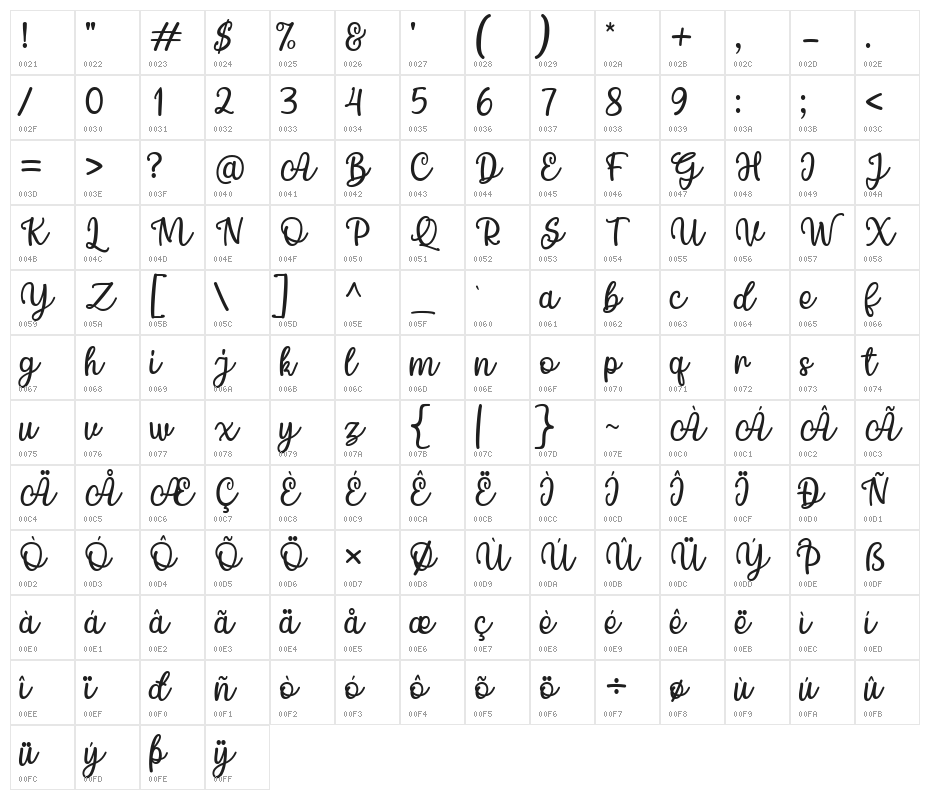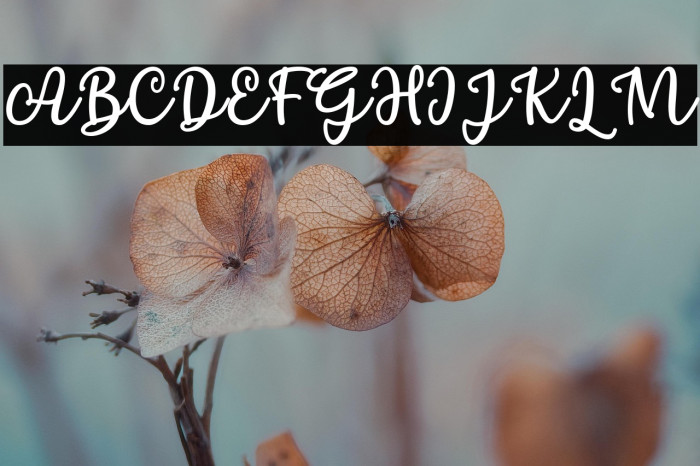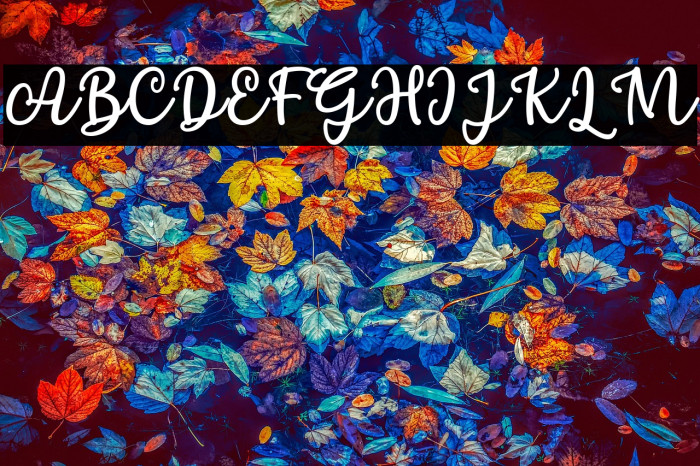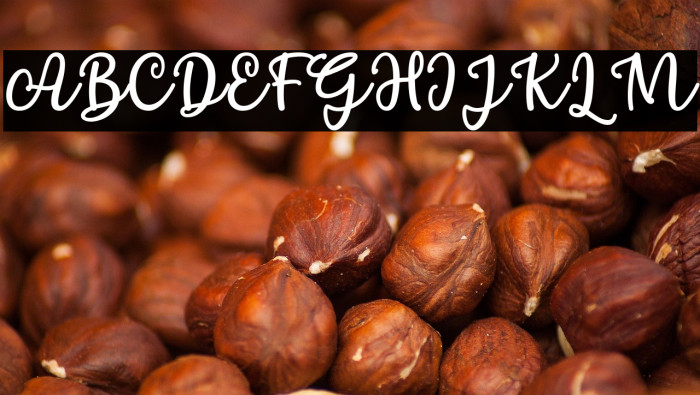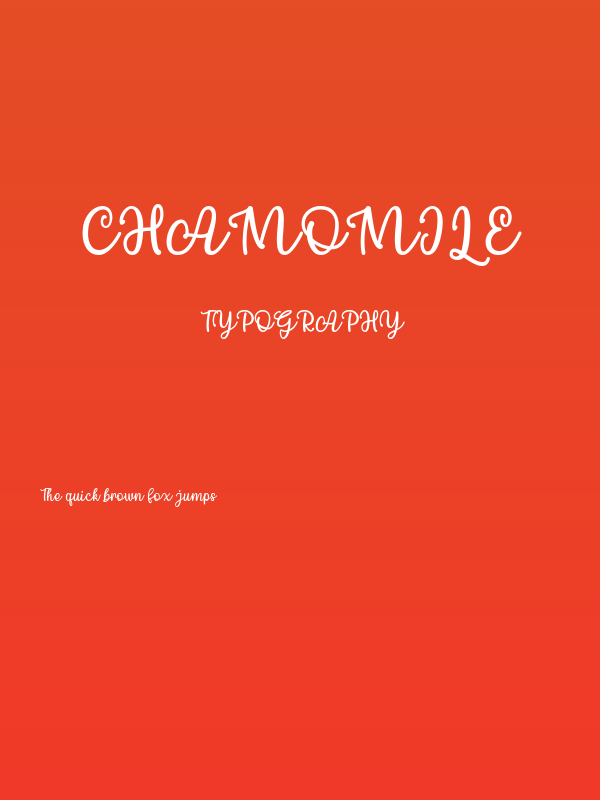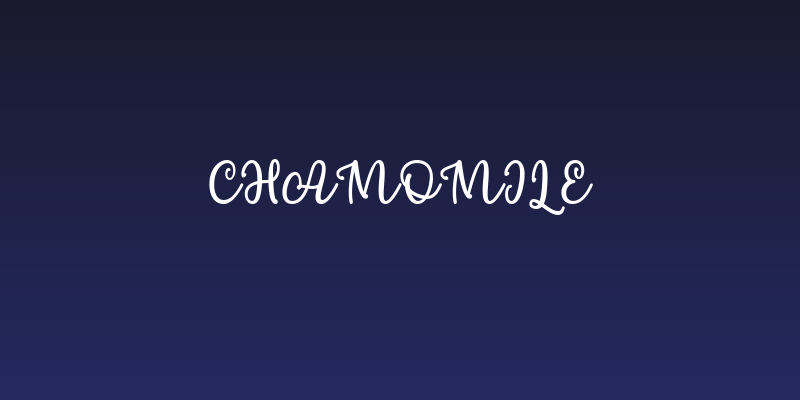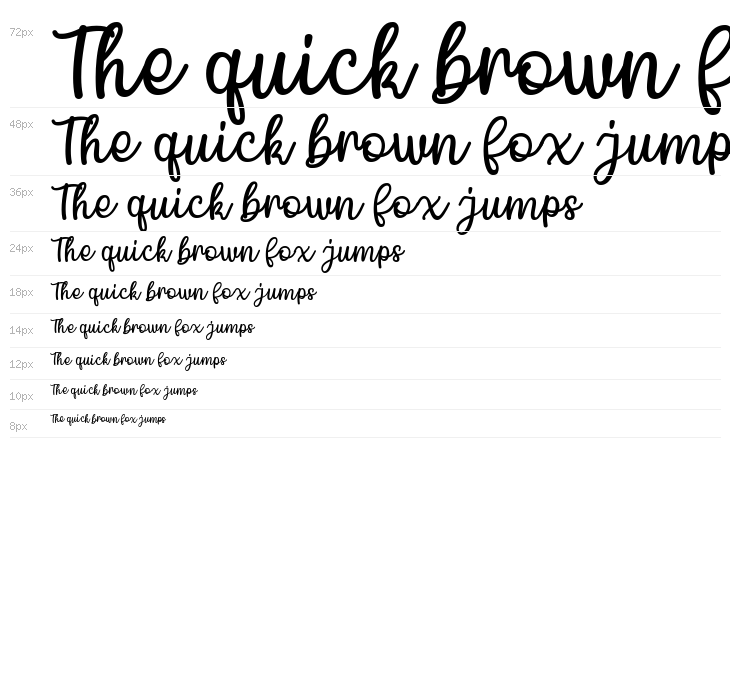
Chamomile Font
Chamomile Description
This font features a playful and elegant script style, characterized by its flowing, cursive letterforms. The uppercase letters are slightly more ornate, with loops and swirls that add a touch of sophistication. The lowercase letters maintain a consistent flow, making it easy to read while retaining a handwritten charm. Numbers and special characters are designed to match the overall aesthetic, ensuring a cohesive look across all text elements. The font's smooth curves and balanced proportions make it suitable for a variety of design applications.